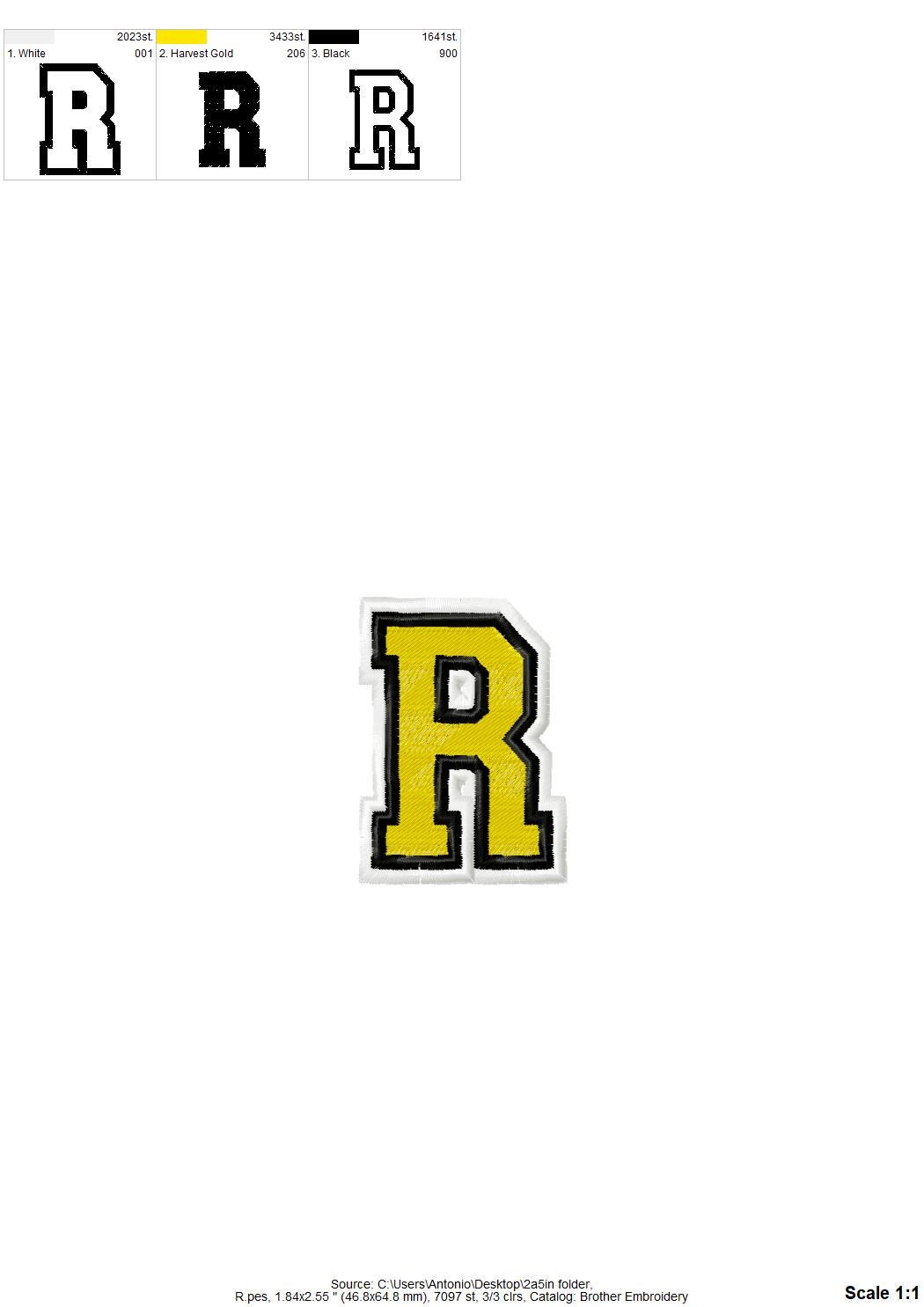
2 outlines Athletic Sport high school varsity collegiate block FONT fill stitch machine embroidery designs sizes 1.4 up to 3.3 inch Alphabet
DESCRIPTION
Font has 3 colors
Font is fill stitched with 2 contrast outlines
Love the stitchwork and boldness of the font.